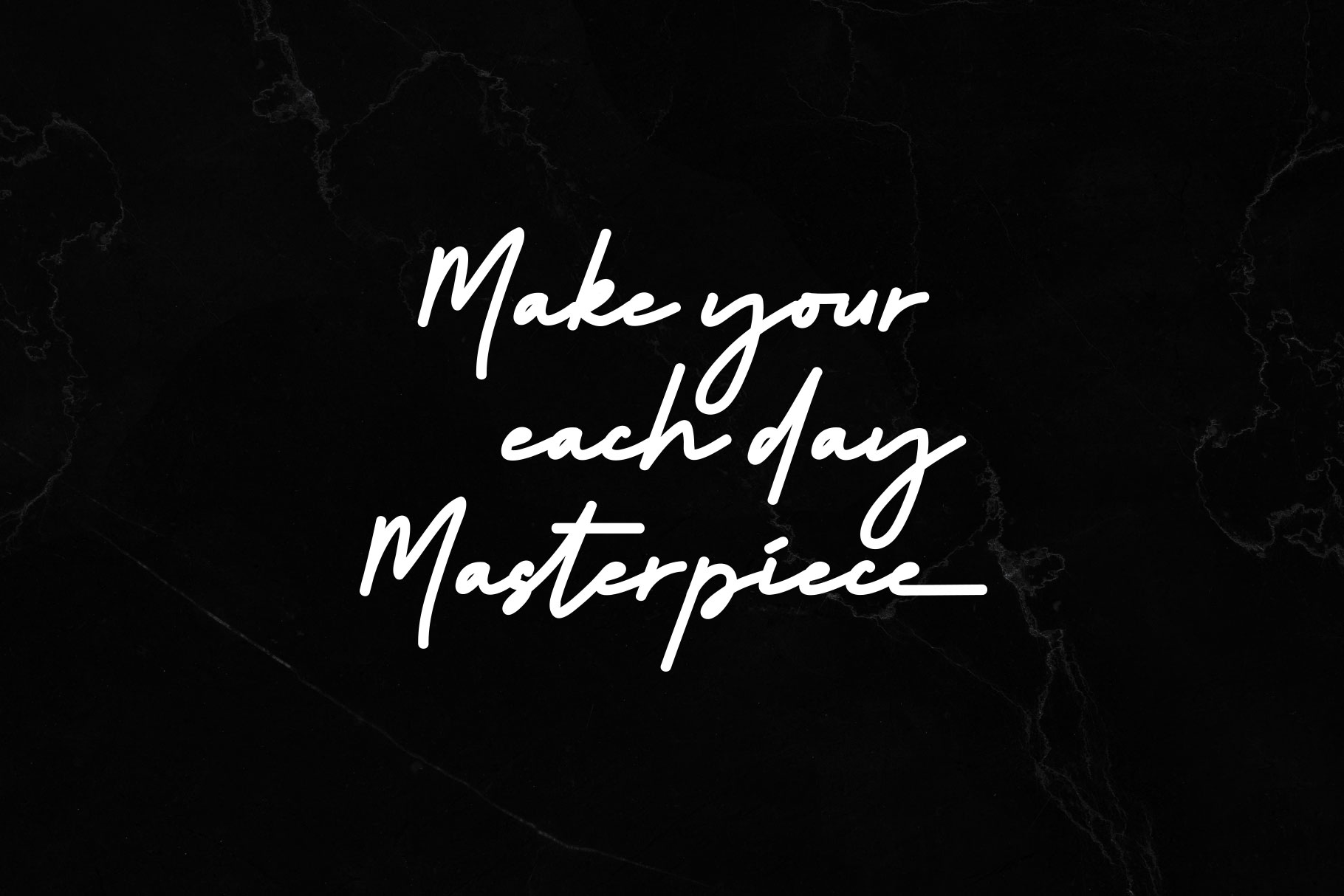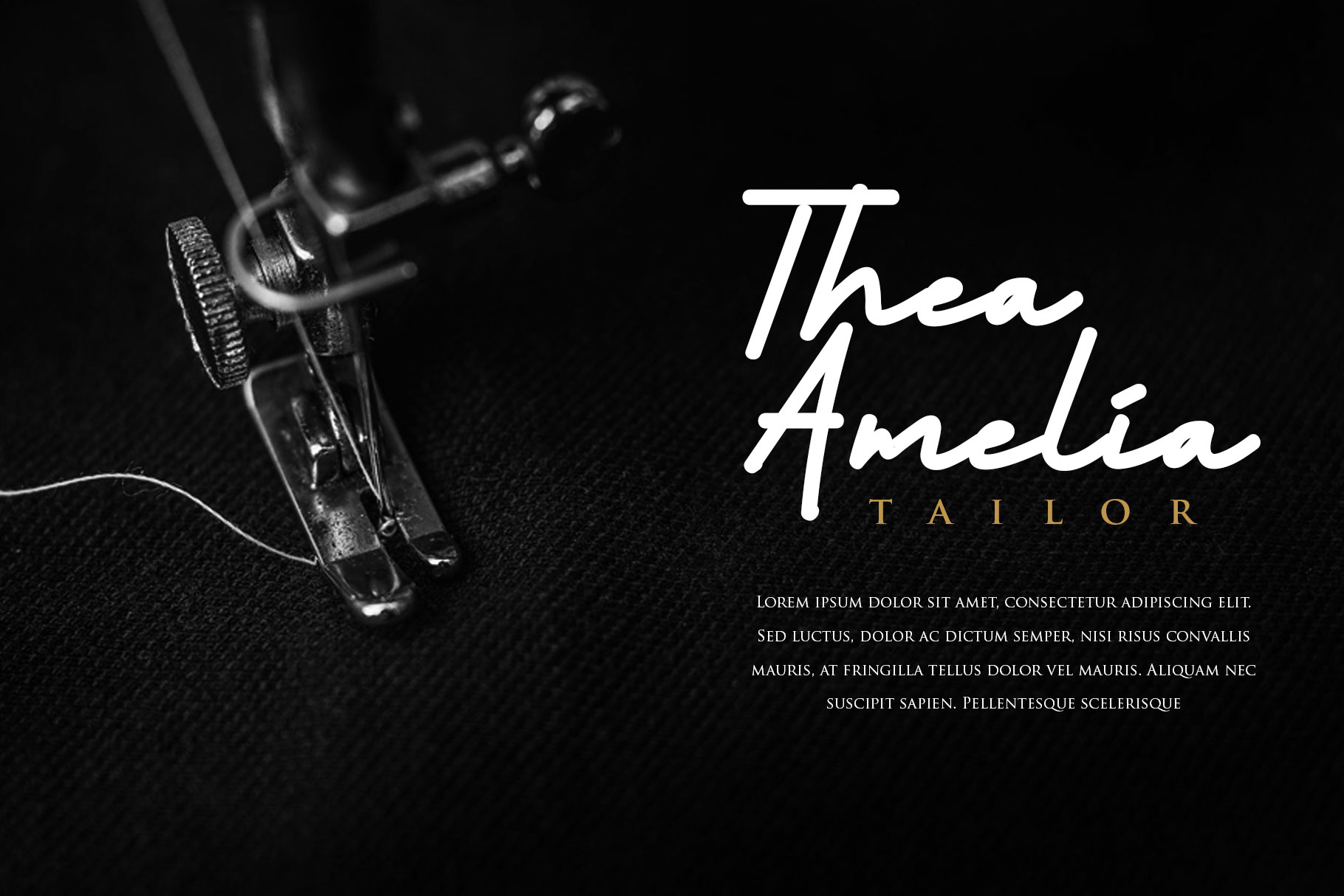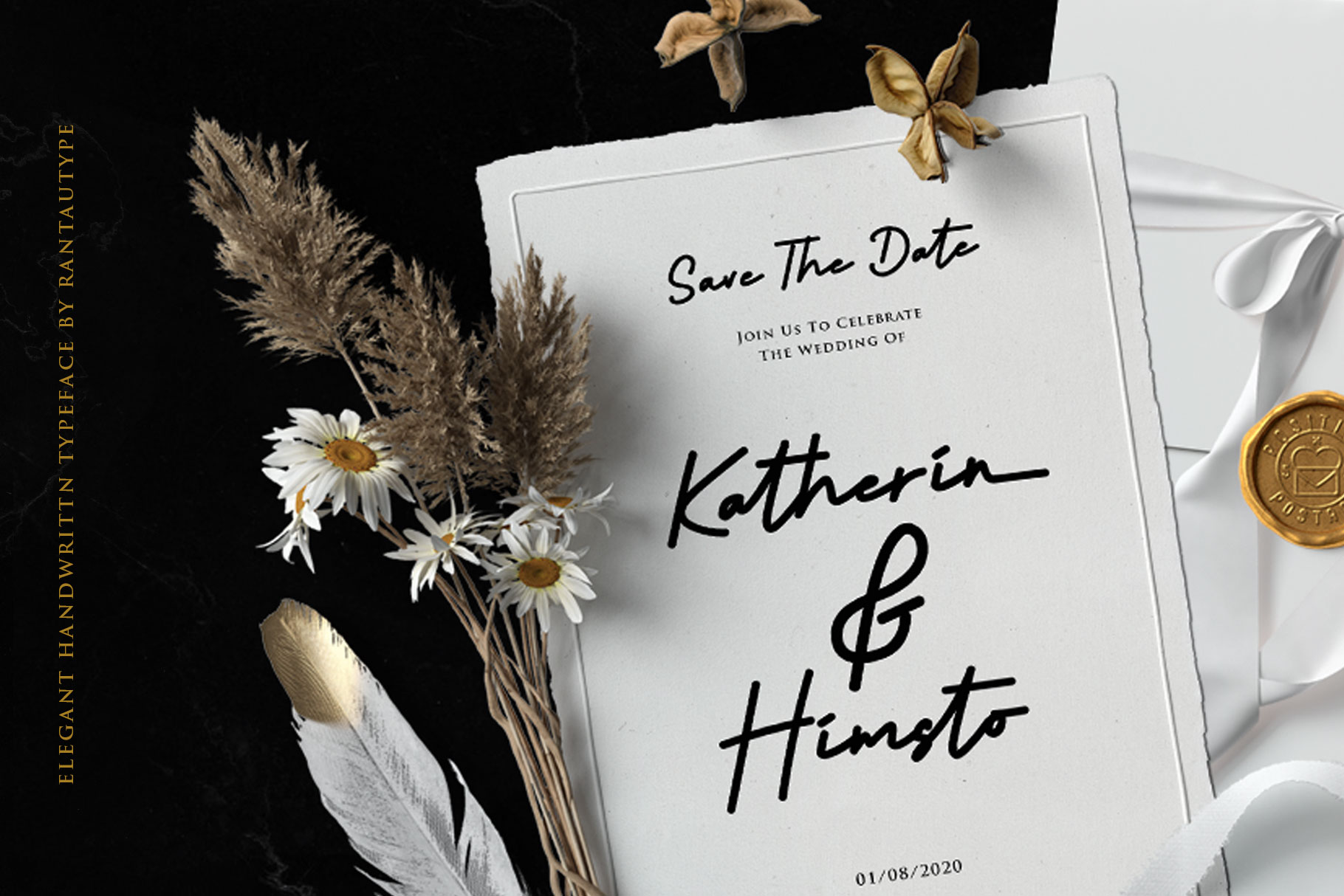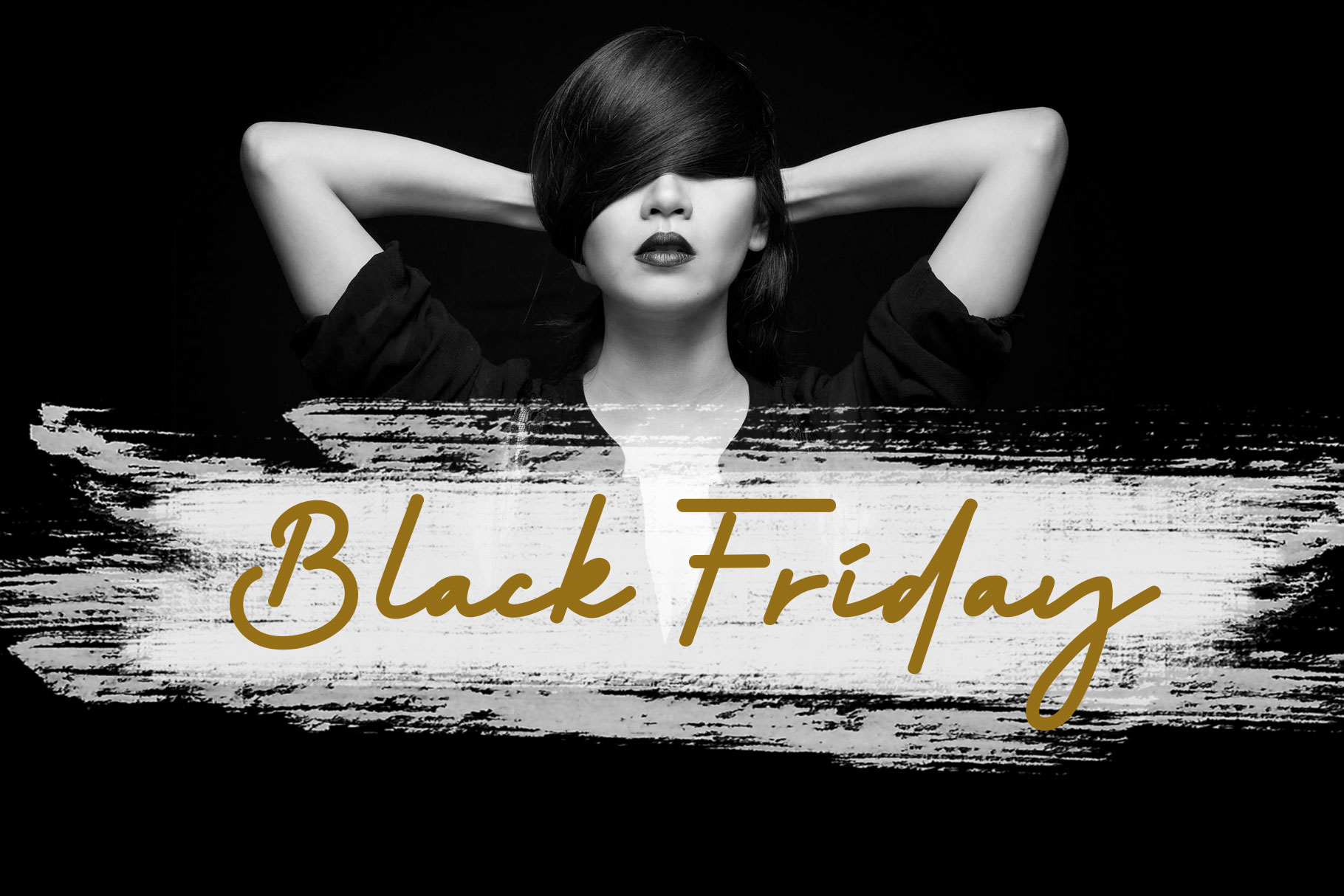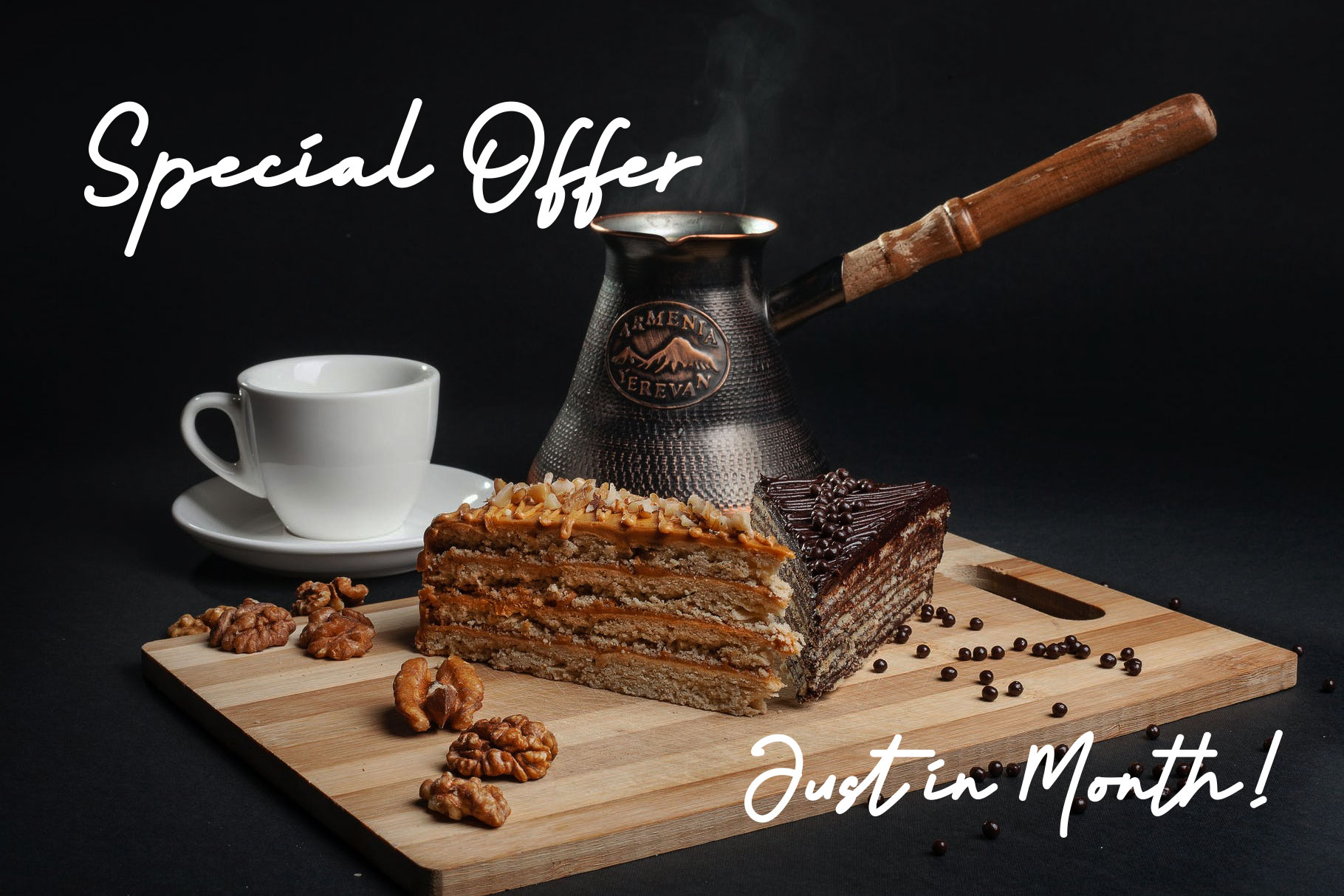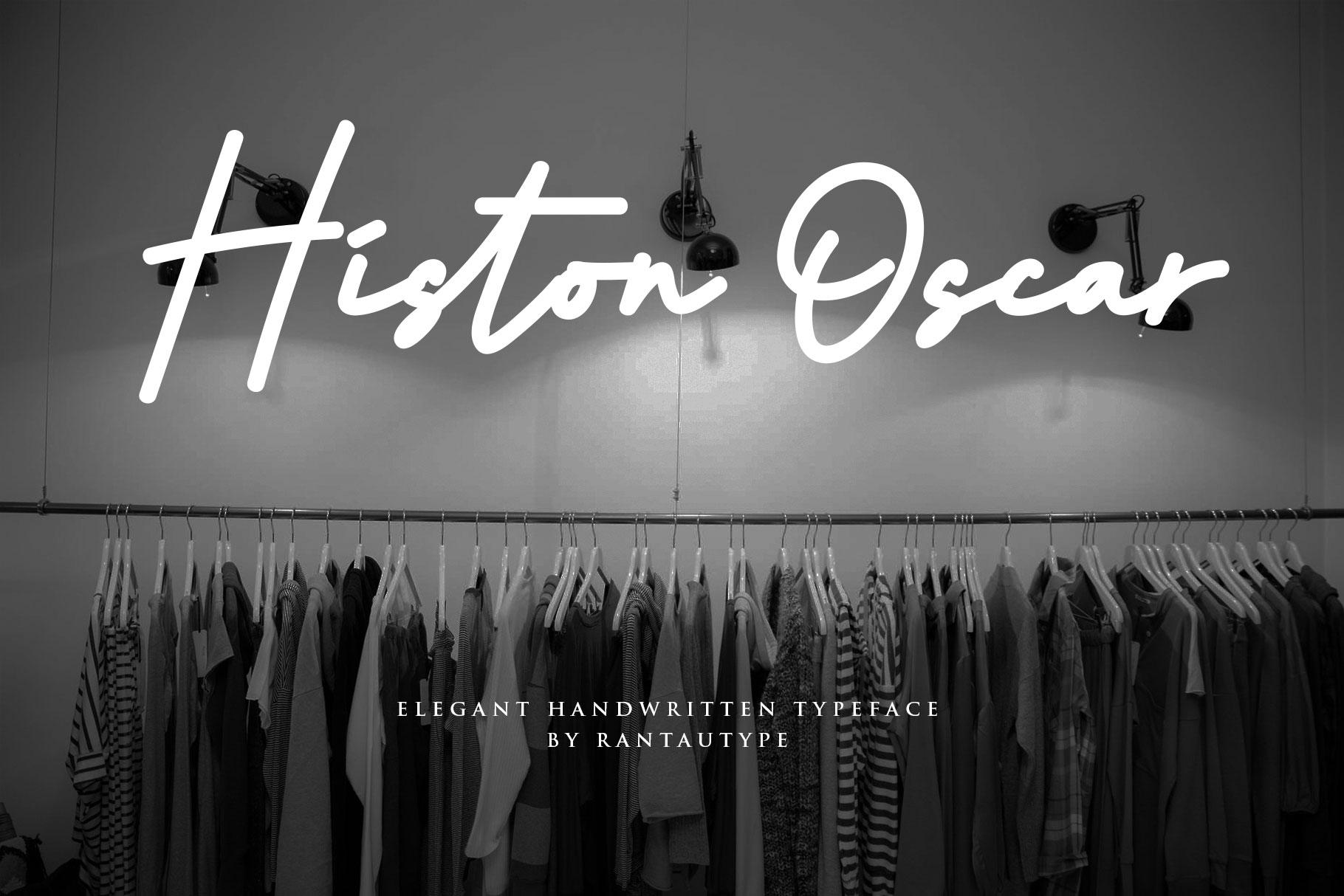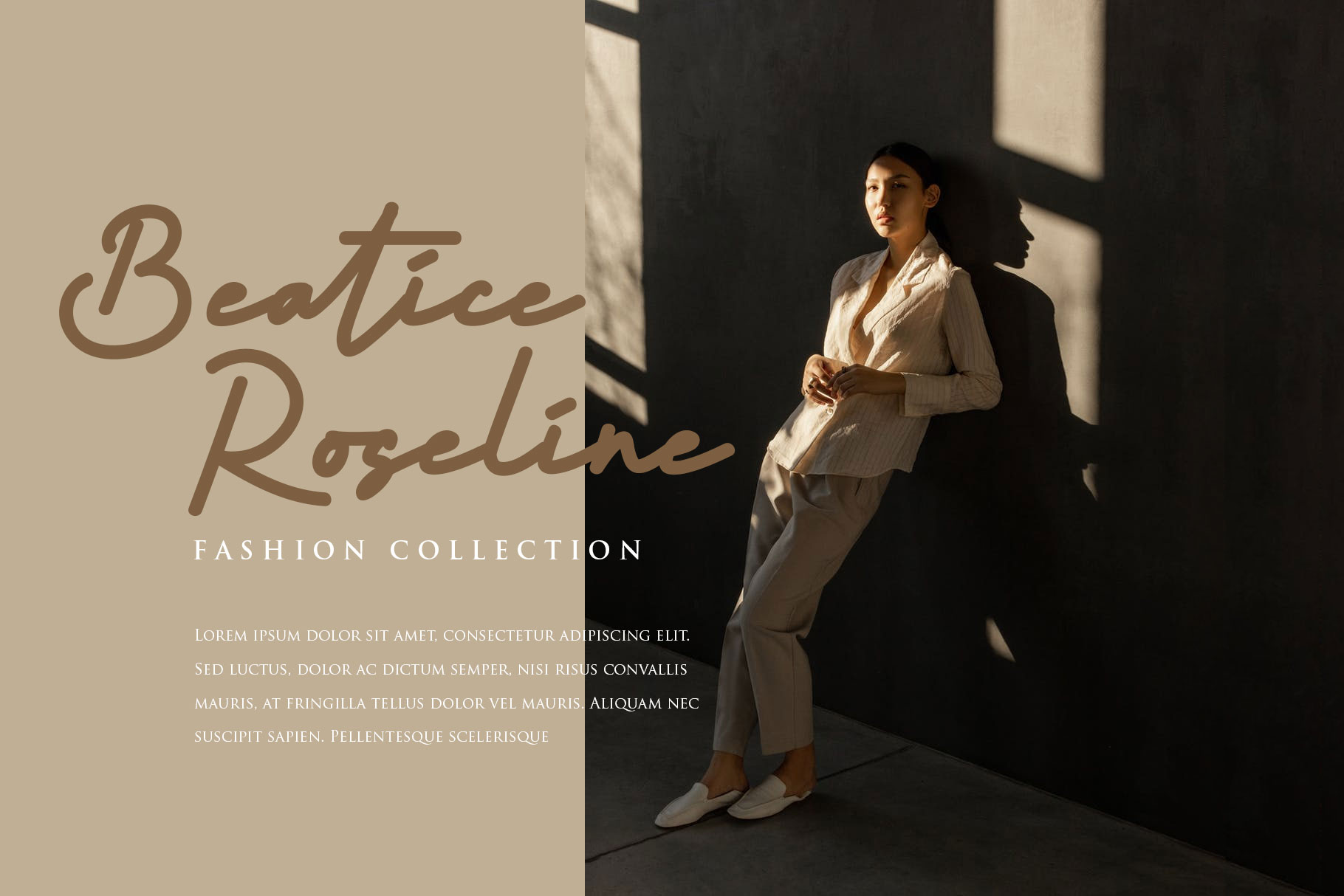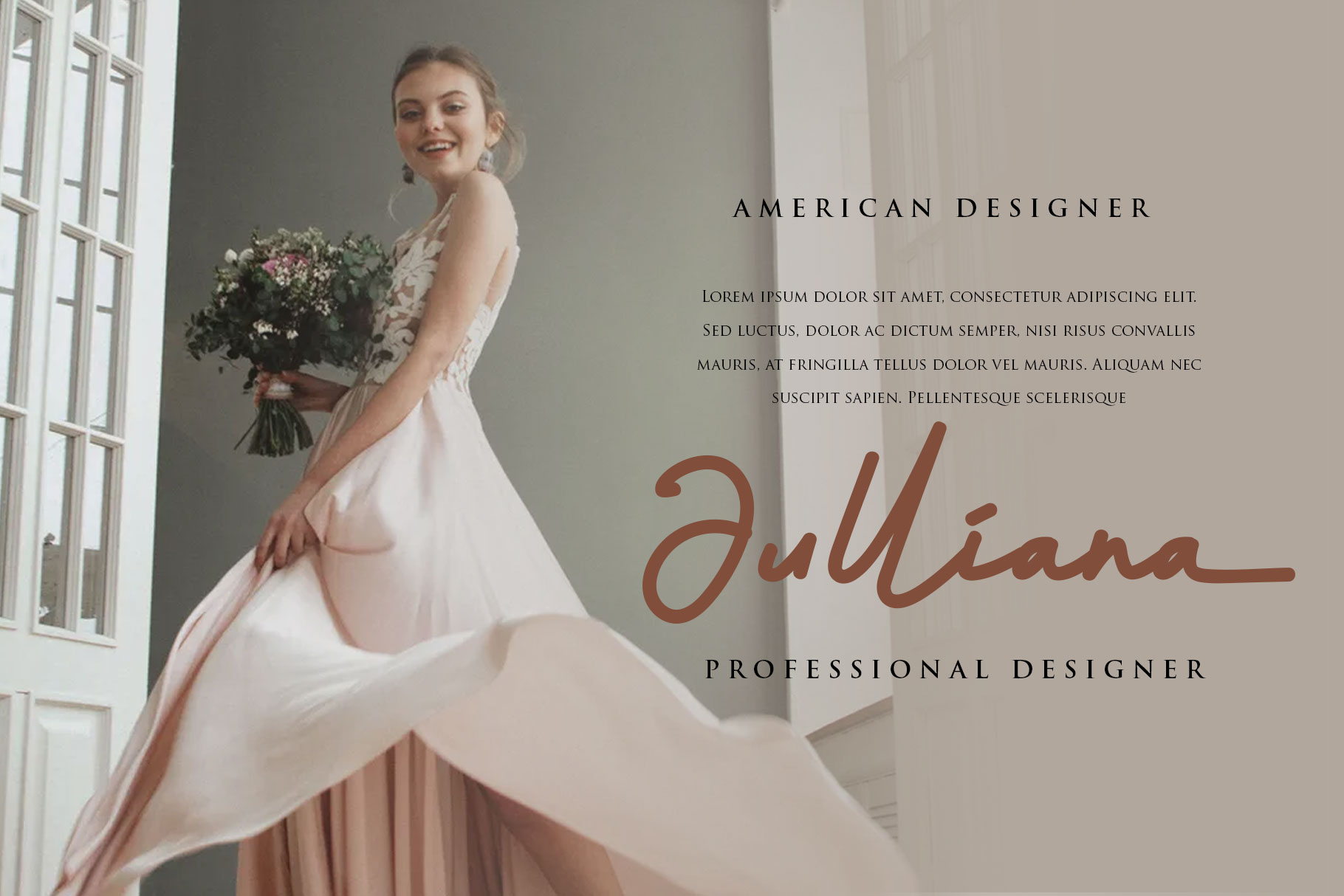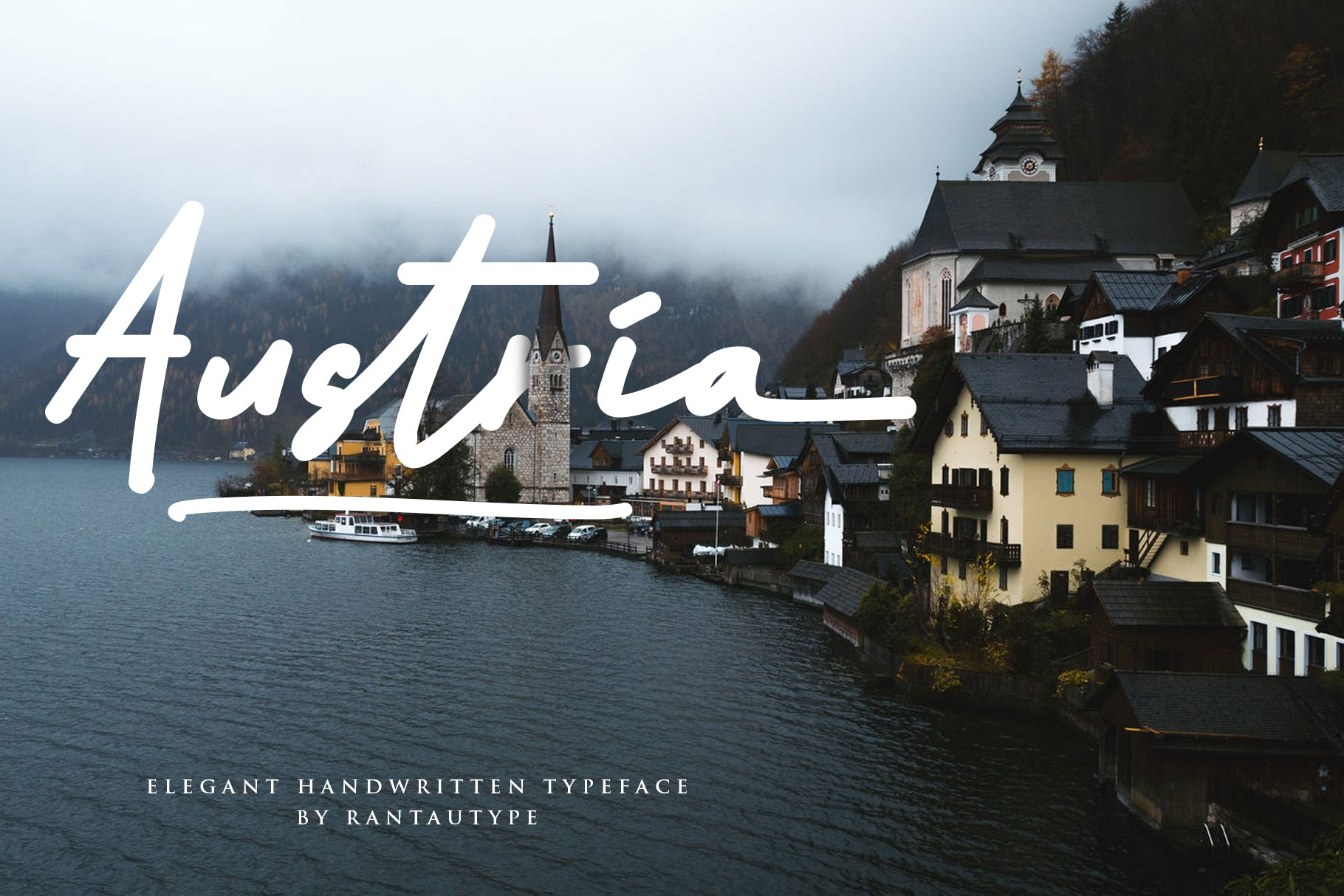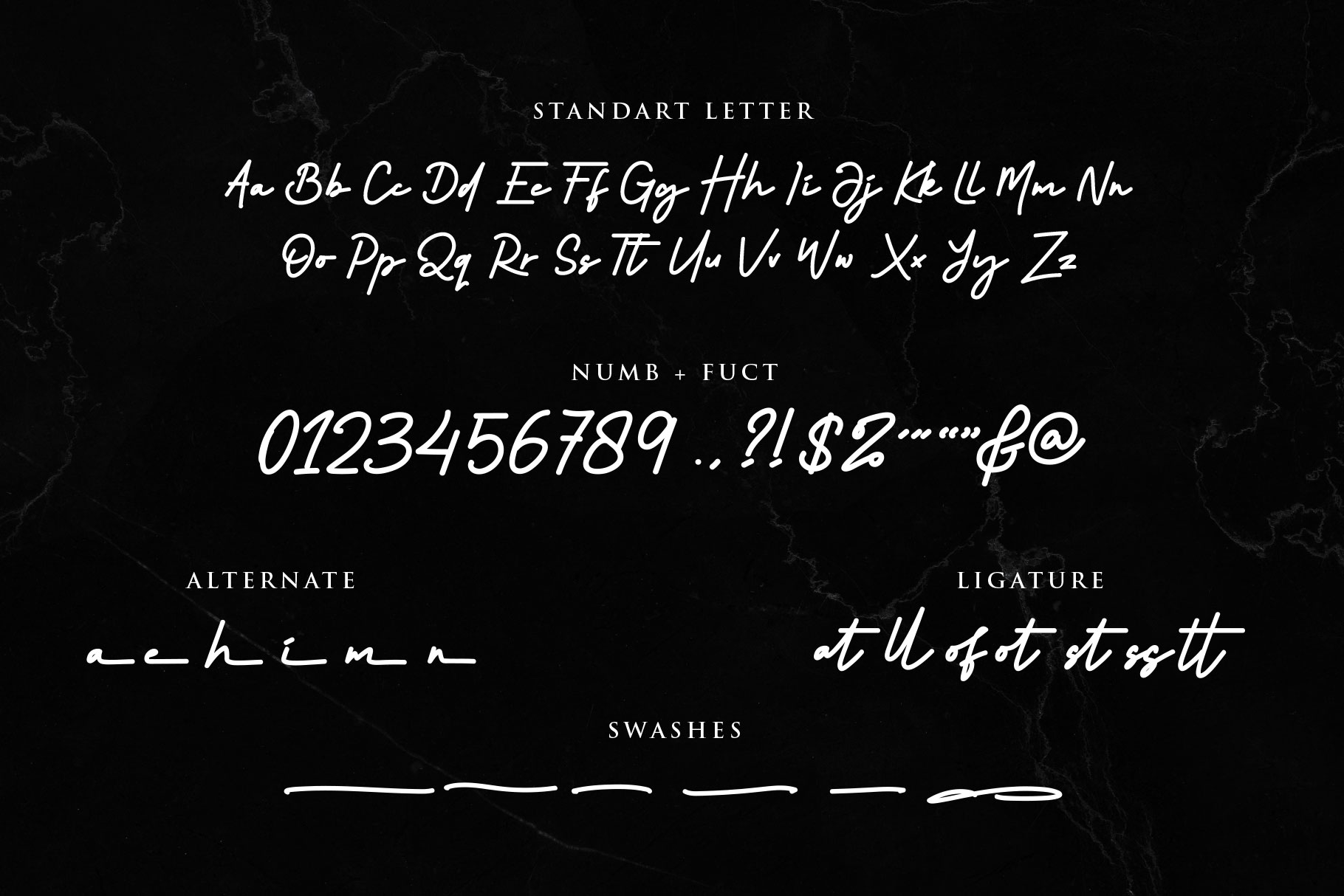
Sofia More Handwritten Font
Sofia More is inspire from a beauty girlĀ  which can be professional interpreted . we keep this font looks elegant, classy, readable, stylish, catchy and easy to use. Sofia More is the great choice for watermark on photography, signature or signature logo design, quotes, album cover, business card and many other design project. Sofia More is here to make your work to high level!!!
• Basic Latin A-Z and a-z
• Ligatures and Alternate